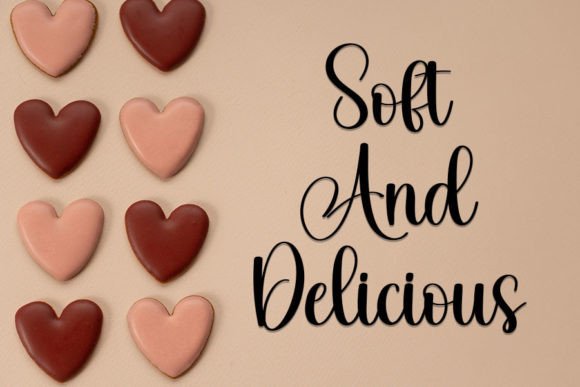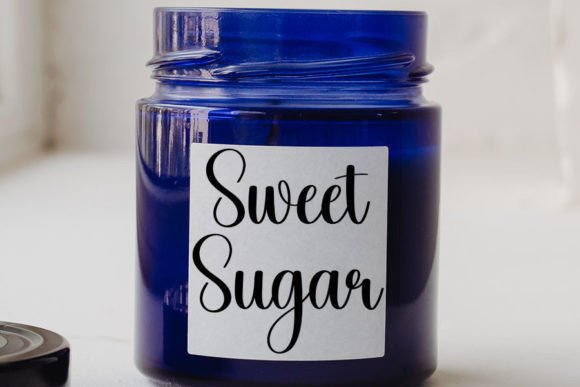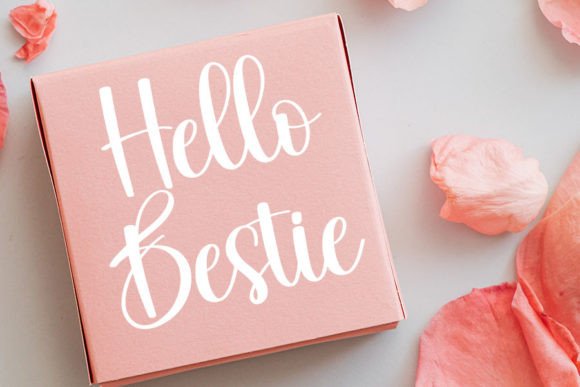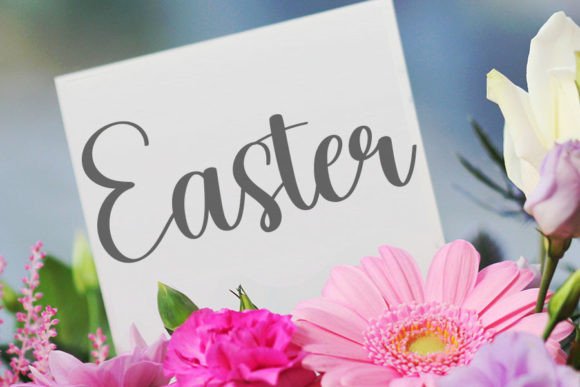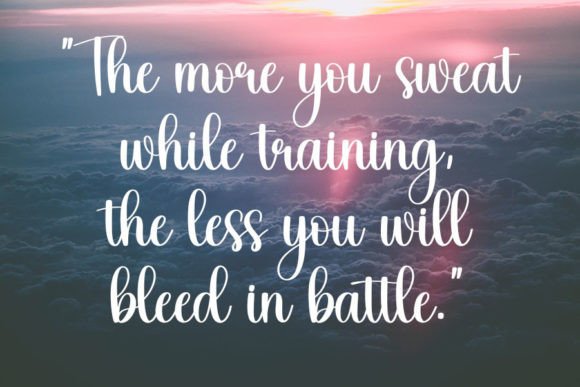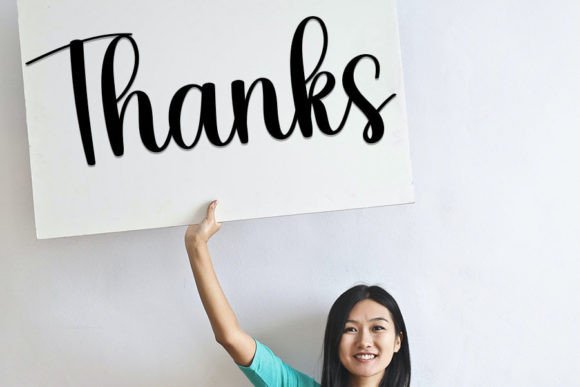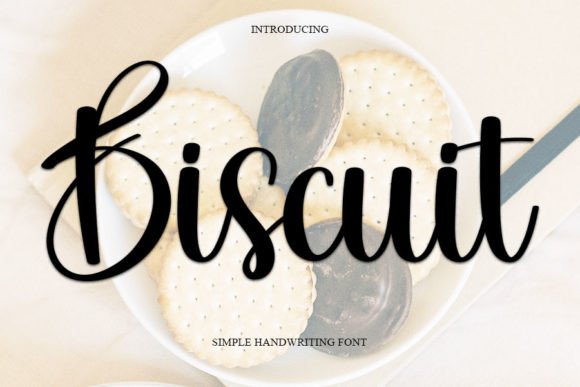
The Biscuit Font: A Simple yet Versatile Handwritten Delight
The Biscuit font is a beautiful, handwritten font that has a wide range of applications. From greeting cards to headlines, it’s the perfect choice for anyone looking to add a natural feel to their project. In this article, we’ll take a closer look at the Biscuit font, its features, and how to use it to take your designs to the next level.
So, what do I love about the Biscuit font? Here are a few things that make it stand out:
- ✅ Simple and neat design that’s easy on the eyes
- ✨ Versatile and adaptable to various design projects
- 🔥 Great for adding a personal touch to your designs
- 👍 Highly legible, even at small font sizes
Of course, no font is perfect, and the Biscuit font has a few small quirks:
- 🤔 Limited stylistic alternates, which may not offer as much flexibility for some designers
- ⚠️ May not be the best choice for body text, as it’s more suited for headlines and titles
The Designer Inspiration Behind Biscuit Font
The Biscuit font was designed with the intention of creating a simple, yet elegant handwritten font that could be used for a wide range of design projects. The designer wanted to create a font that was easy to read and understand, yet still had a personal touch. **The result is a font that’s both versatile and beautiful!** 🎉
| Author | Harlek studio |
- Q: What type of projects is the Biscuit font best suited for?
- A: The Biscuit font is versatile and can be used for a wide range of projects, including greeting cards, headlines, and more.
- Q: Is the Biscuit font suitable for body text?
- A: While the Biscuit font is highly legible, it’s more suited for headlines and titles. For body text, you may want to consider a different font.